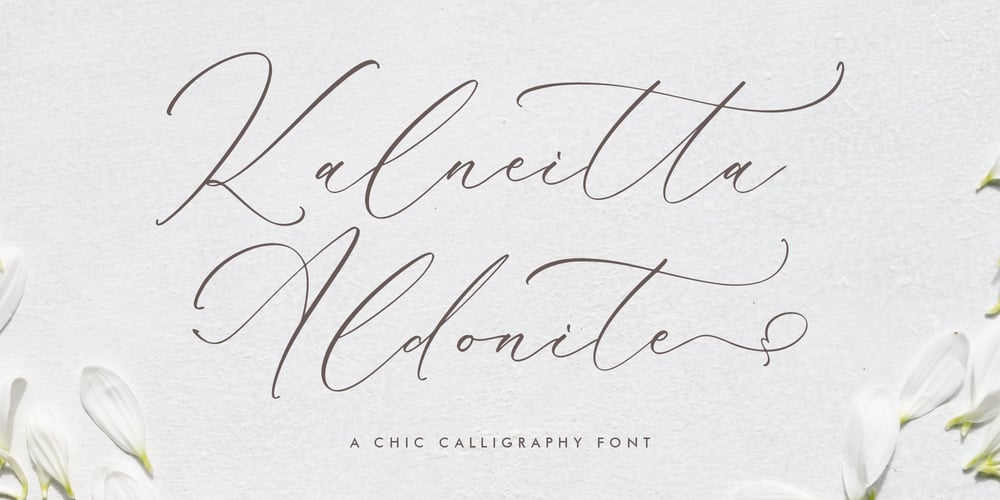
Kalneitta Aldonite Font Family was designed by Heru Utama Putra and published by Letterena Studios. Kalneitta Aldonite contains 2 styles and family package options. Kalneitta Aldonite is a flowing handwritten font, described by an elegant touch, perfect for your favorite projects. Fall in love with its incredibly distinct and timeless style and use it to create spectacular designs!